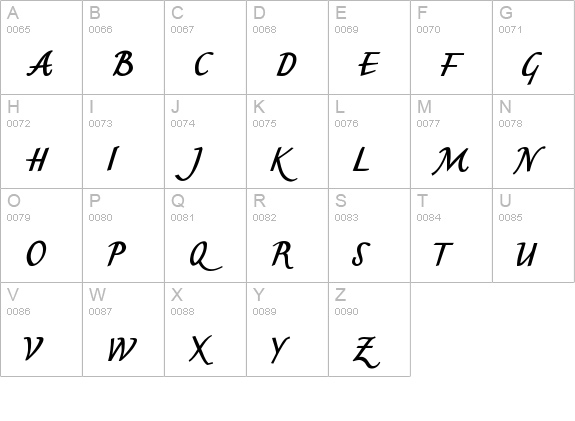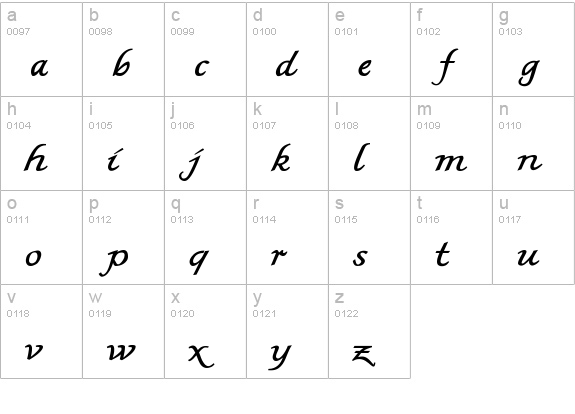
MKBritishWriting Font Details
MKBritishWriting font is a stylish and elegant typeface that exudes sophistication and charm. Its classic design and sleek lines make it perfect for a wide range of projects, from invitations to branding materials. This versatile font is ideal for both print and digital use, adding a touch of class to any design. What sets MKBritishWriting font apart is its timeless appeal and attention to detail. The clean and crisp letterforms make for easy readability, while the subtle flourishes add a touch of elegance. Whether you're working on a vintage-inspired project or a modern design, this font is sure to make a statement. Best of all, MKBritishWriting font is available for free download at FontsMarket.com. This means you can easily access this high-quality font without breaking the bank. So why wait? Bring a touch of sophistication to your next project with MKBritishWriting font today!